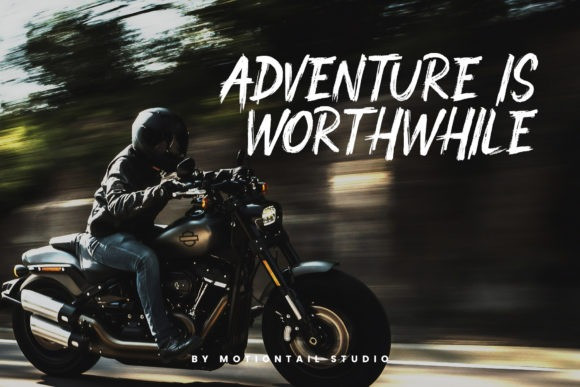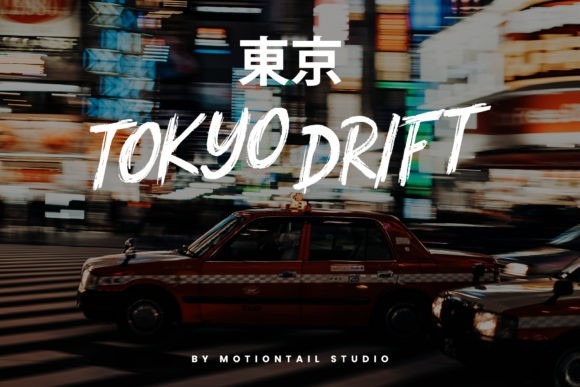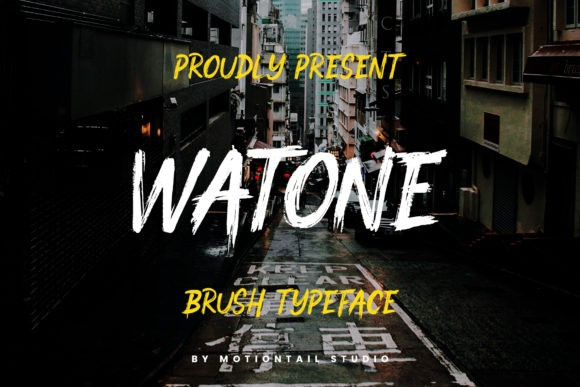
Watone Brush Font
Watone is a bold brushed display font. It features a rough texture and thick letters and as a result, it will match each of your creative ideas in need of a dramatic, strong touch.